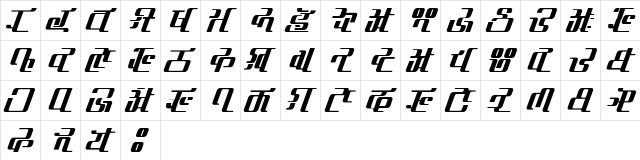
TechBonR Regular
Design Context for TechBonR Typeface
TechBonR has a distinctly futuristic character, with geometric precision and clean angles that feel at home in technology, gaming, and sci-fi contexts.